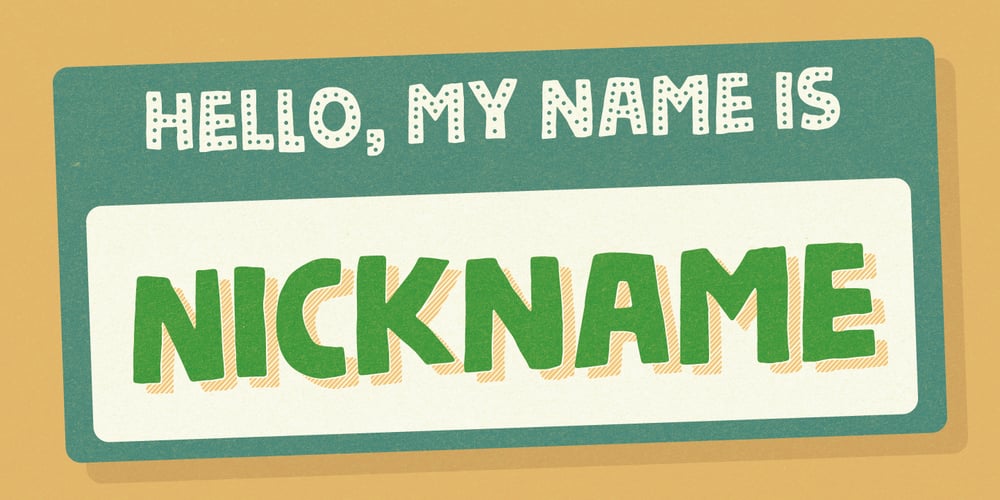
Nickname
Nickname font
Nickname Font Family was designed by Jakob Fischer and published by PizzaDude.dk. Nickname contains 7 styles and family package options. What’s your nickname? I guess we all have had some kind of nickname…some of us even still has! This font is called Nickname, and you can nickname it whatever you please…maybe nicknames like playful or funky comes to mind?! The font Nickname comes with extended language support as well as ligatures for double letters – and that goes for all seven different versions of the font! Yes SEVEN different versions! Mix and match to get that authentic handmade feeling … well, since the font IS handmade, all you need to do is play around with the different versions! 🙂